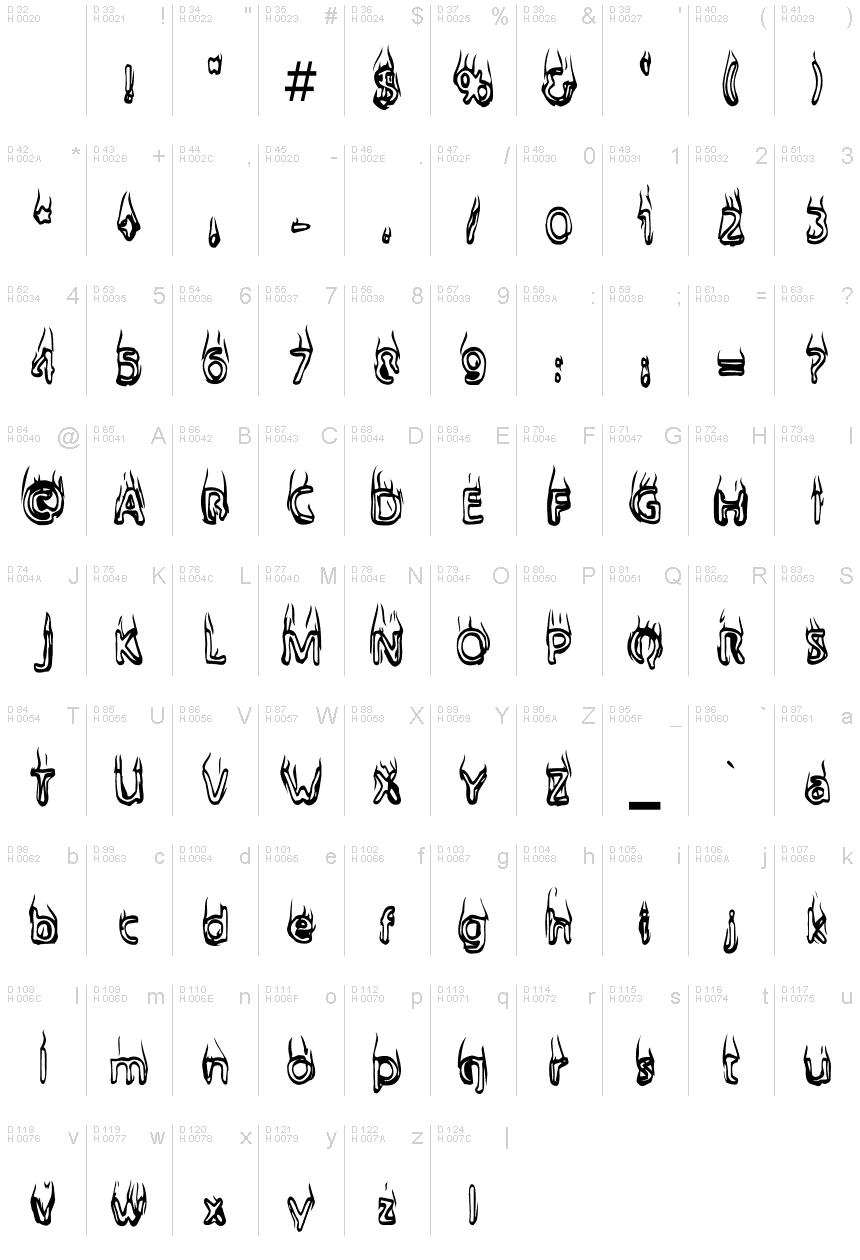
BaileysCar-Regular
Baileys Car is a fiery headline font. While using a flaming font to accentuate the idea of hot is in inarguably poor taste, sometimes thats exactly whats needed.
Raymond Larabie